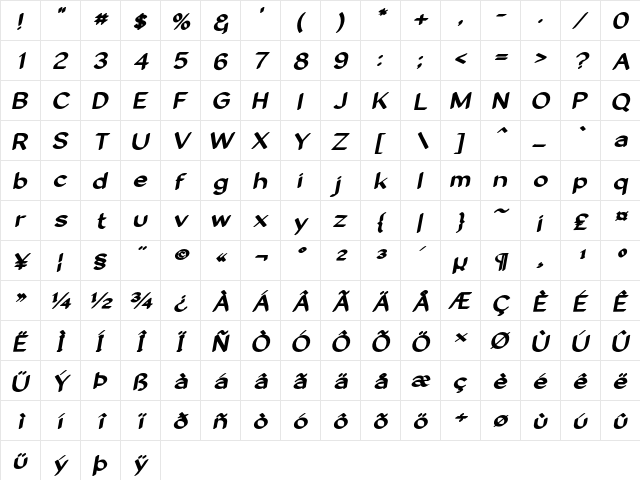
Likkle Expanded Oblique Regular Font Preview
Likkle Expanded Oblique Regular
Likkle Expanded Oblique Regular Font Details
| Foundry | Graham Meade |
Design Context for Likkle Expanded Oblique Typeface
Likkle Expanded Oblique takes a measured approach to typography — its balanced proportions and neutral character make it a reliable workhorse for both digital and print work. The slanted form adds forward momentum and visual energy.
Pro Tip: Use Likkle Expanded Oblique for emphasis, pull quotes, and subheadings where its slanted energy can add rhythm to the layout.